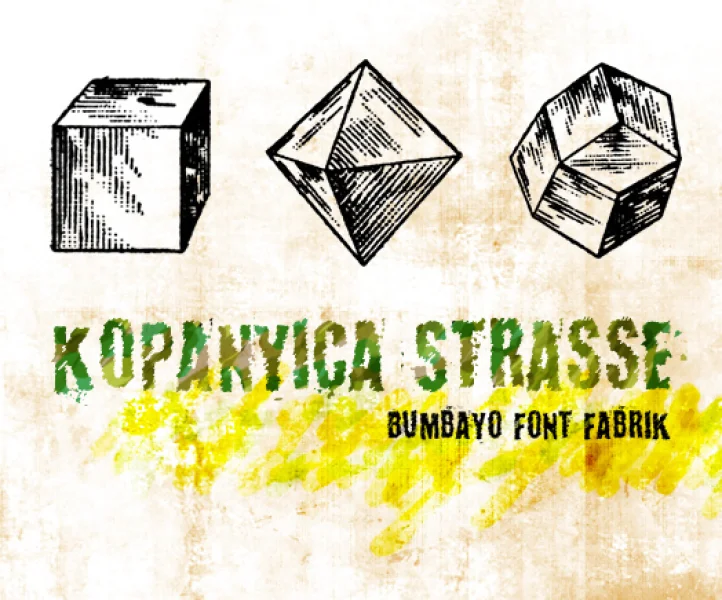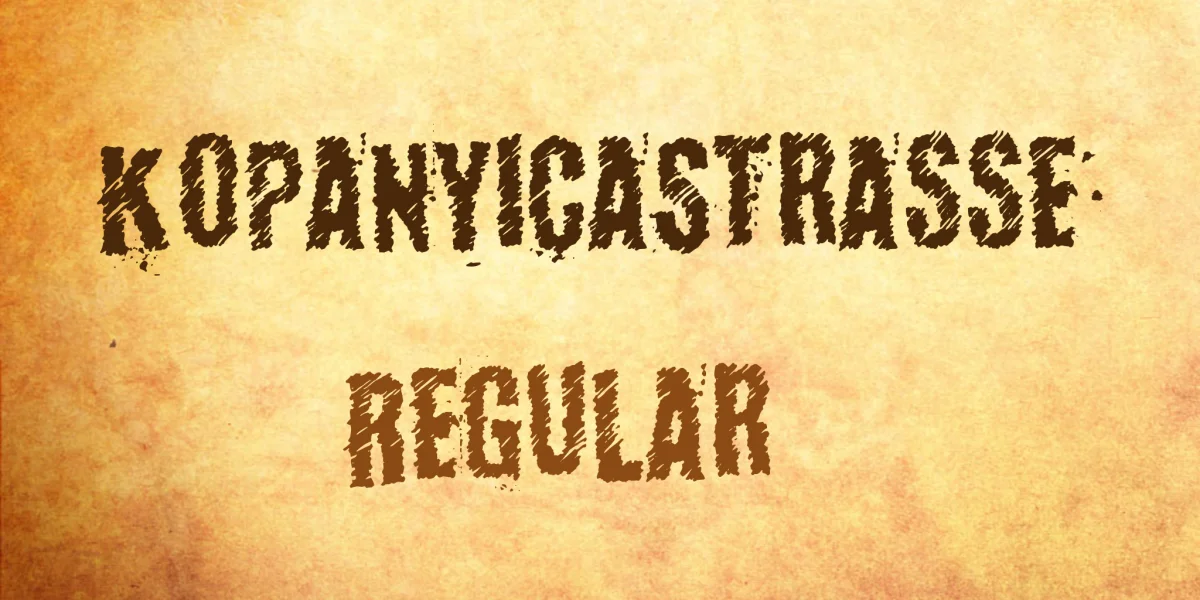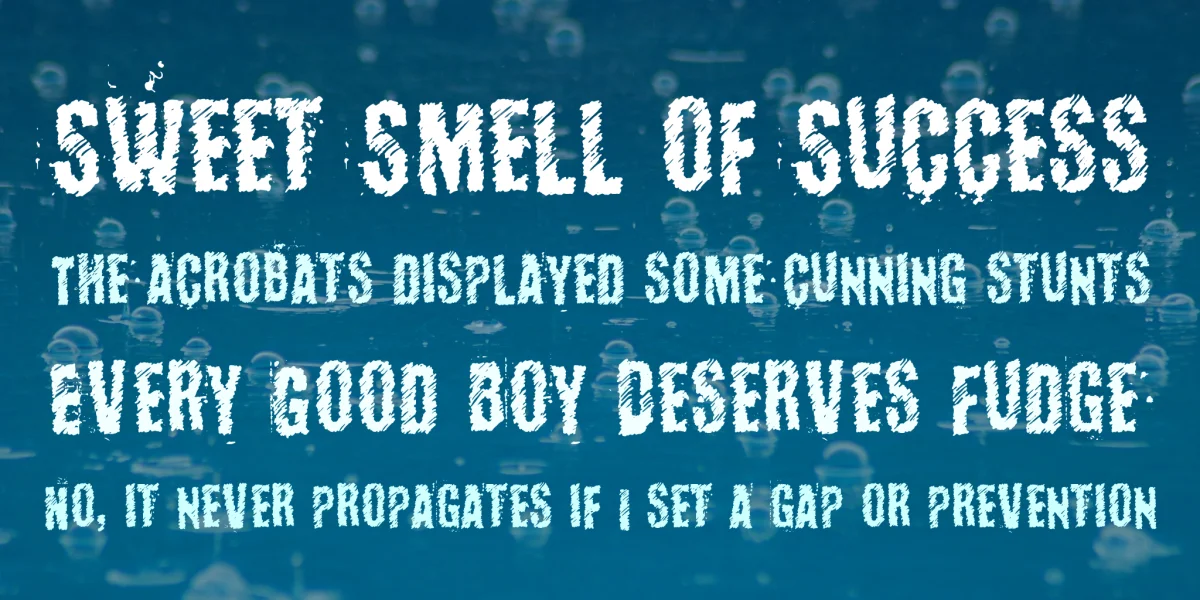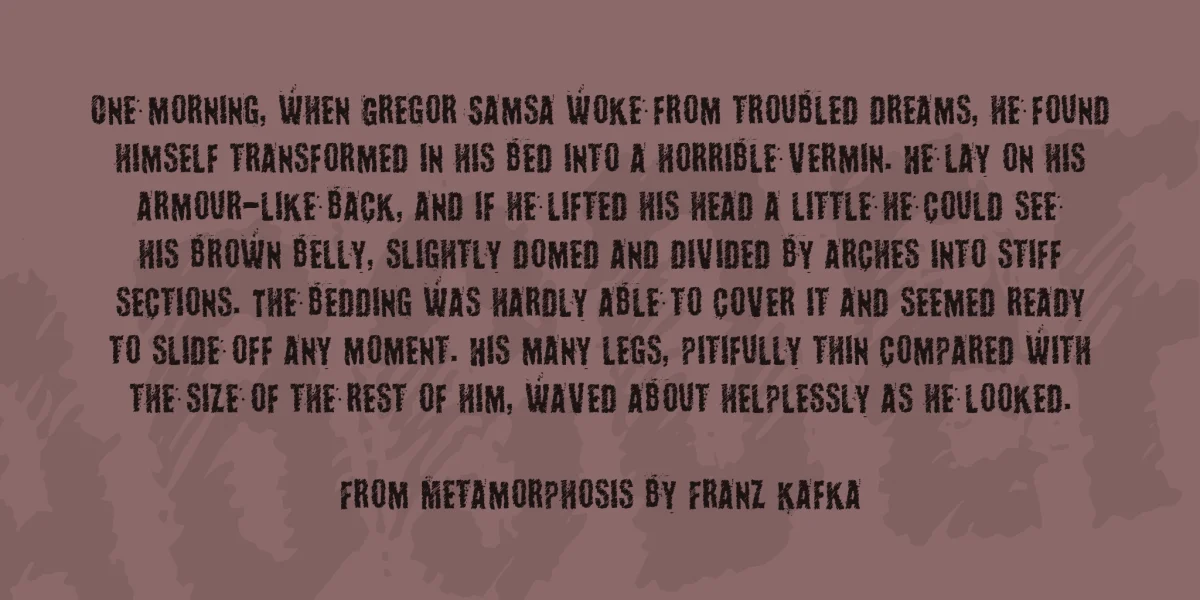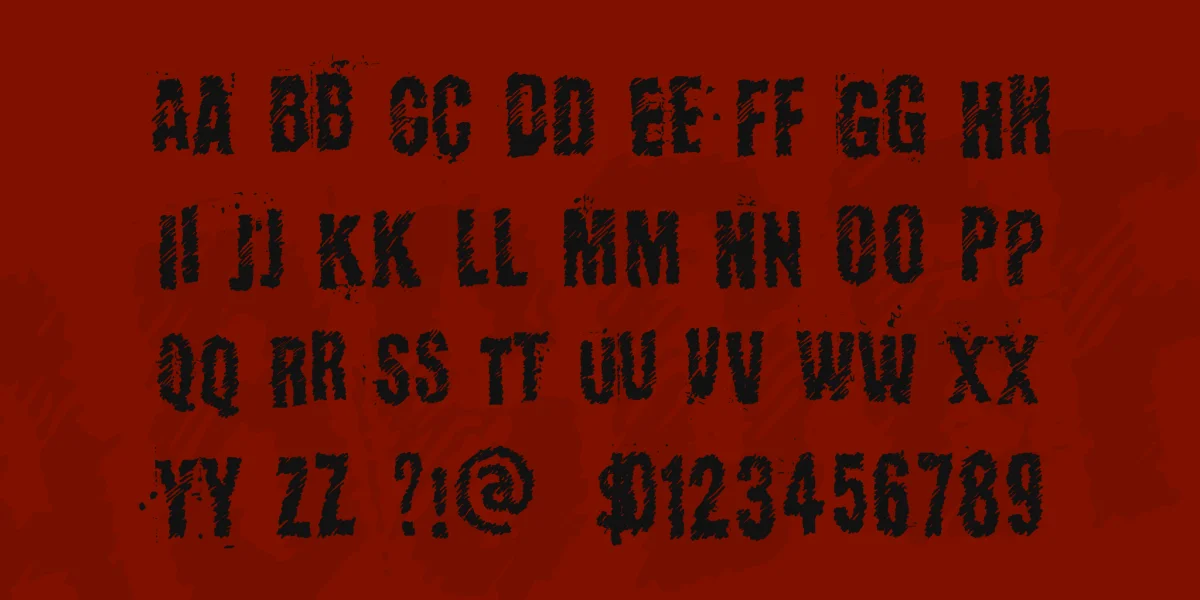
KopanyicaStrasse Font
Designed by Bumbayo Font Fabrik
Inspired by Old Universal Horror Movies, Created with Old/Vintage B-movie Signs. Has Uppercase Alphabet, Lowercase Alphabet, Numbers 0-9.